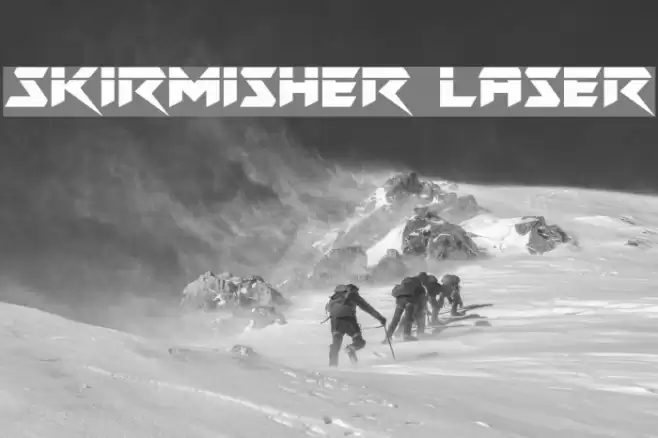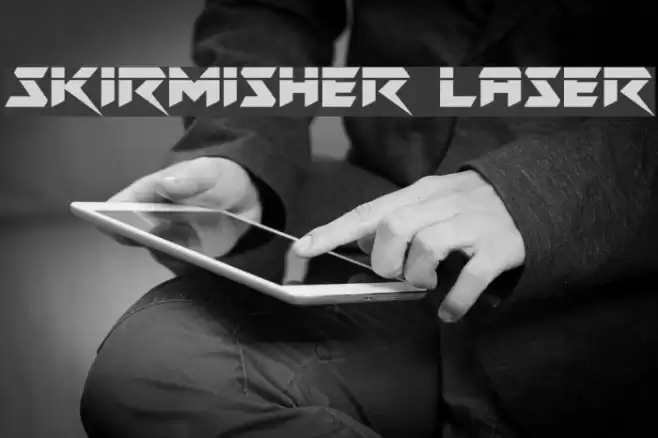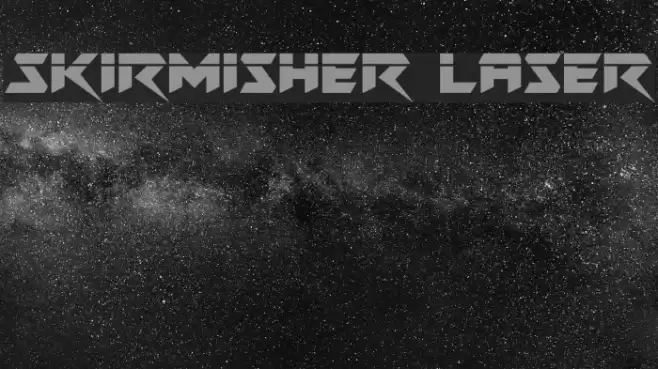
Skirmisher Laser Font
Skirmisher Laser Description
This font features a bold, futuristic design with sharp angles and geometric shapes, giving it a distinctly modern and edgy appearance. The characters are constructed with a combination of straight lines and pointed edges, creating a dynamic and aggressive look. The uppercase and lowercase letters maintain a consistent style, with the uppercase being slightly more pronounced. Numbers and special characters follow the same angular theme, ensuring uniformity across all glyphs. The font's boldness and unique style make it stand out, making it ideal for projects that require a strong visual impact.
A bold, futuristic font with sharp angles and geometric shapes from Uncategorized fonts.
- Proposed Projects: Ideal for sci-fi themed designs, video game titles, movie posters, and branding that requires a modern, edgy look.